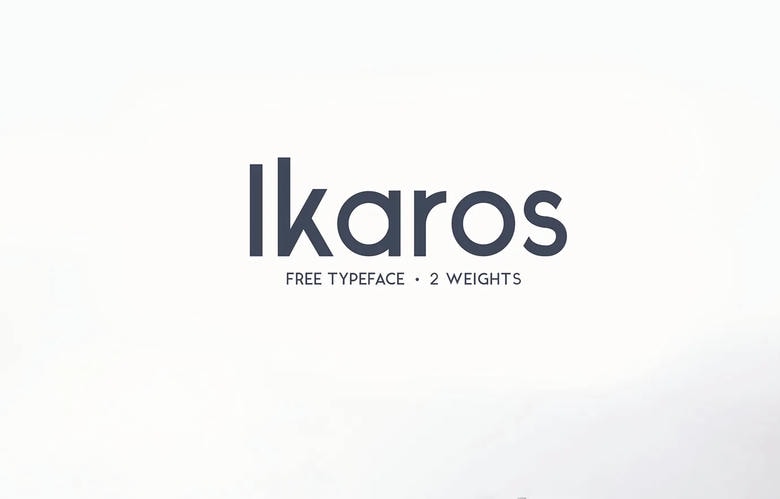
Ikaros Font
Ikaros is a sans serif font that features regular shapes with a modern and minimalist aesthetic, perfect for posters packaging logos packaging packages packaging packages logos packaging and much more.
Ikaros Sans Serif Font